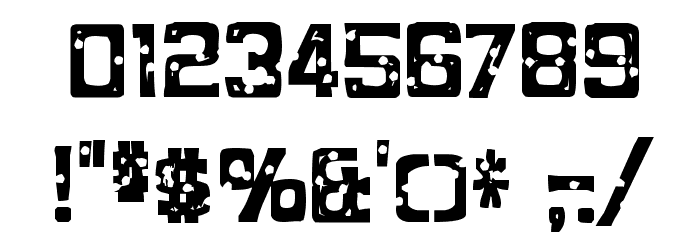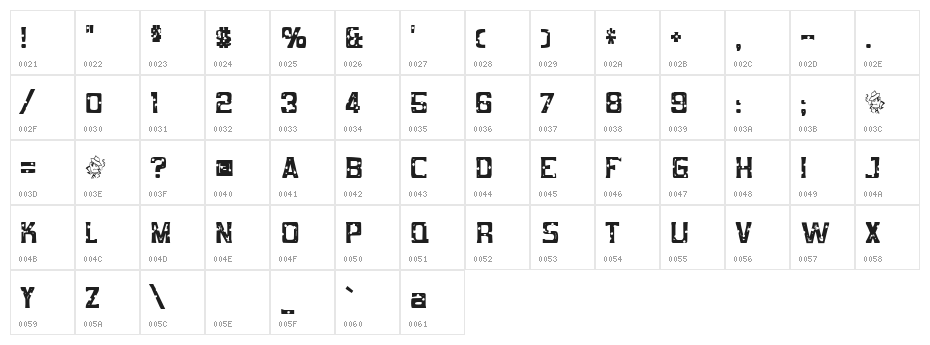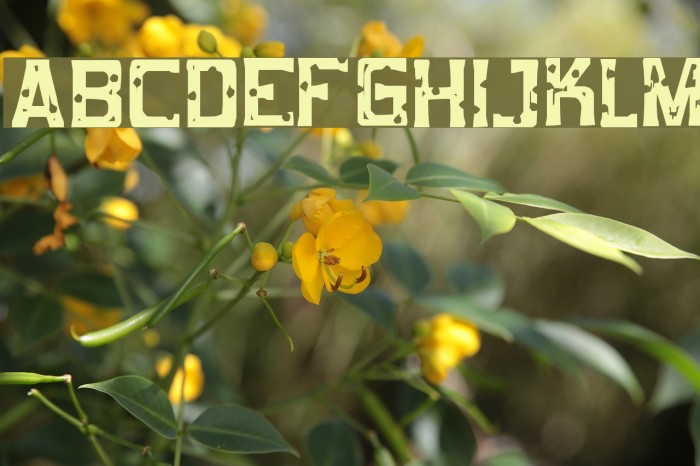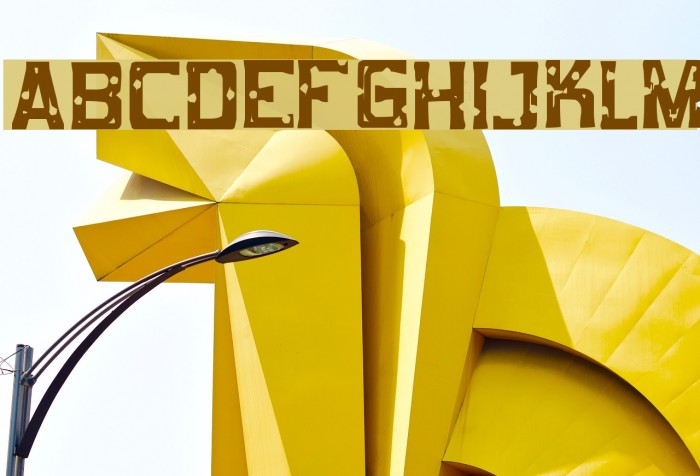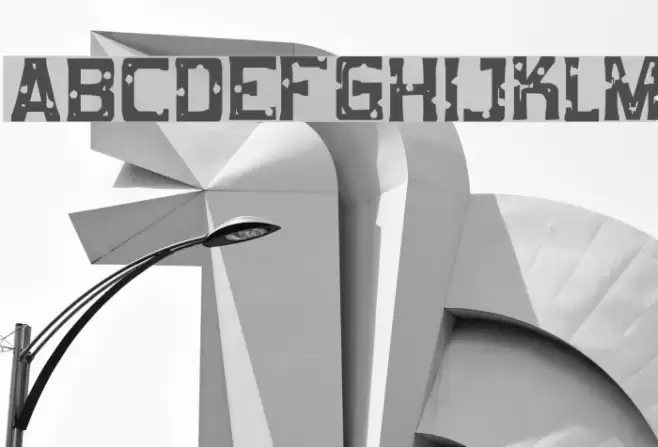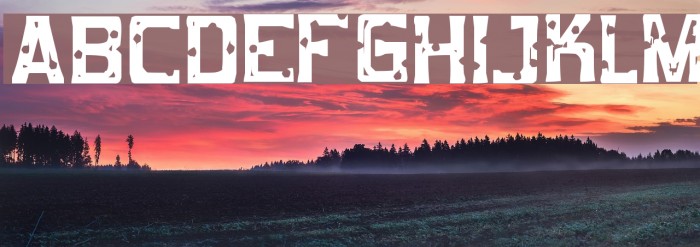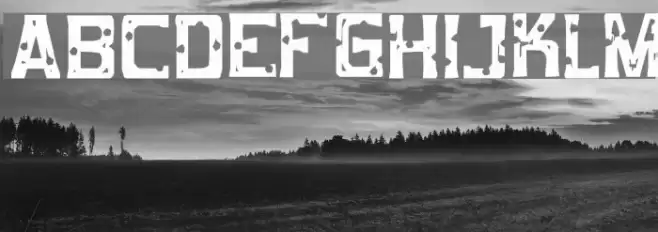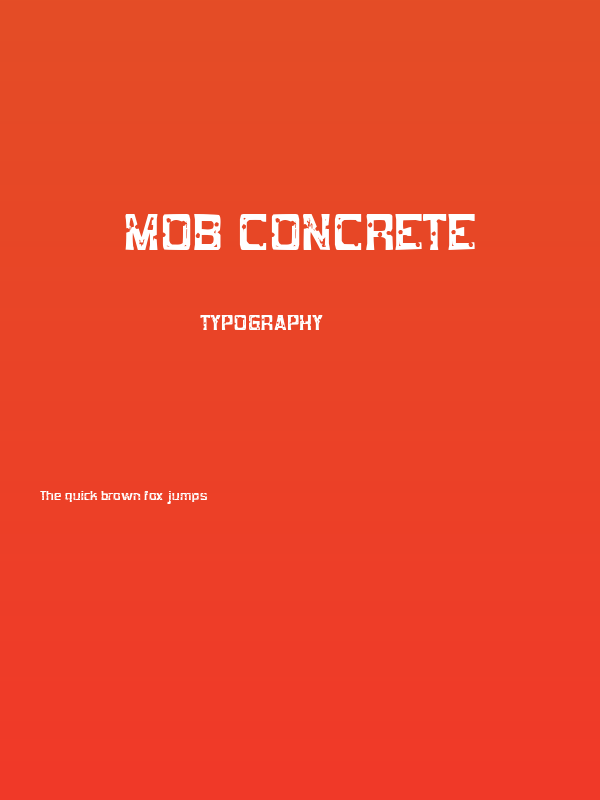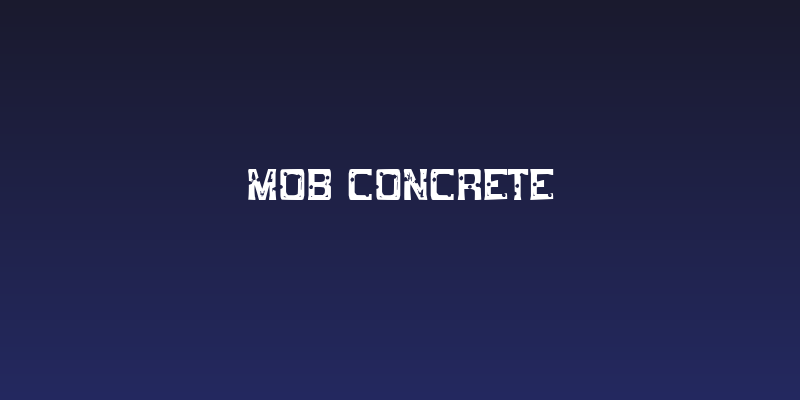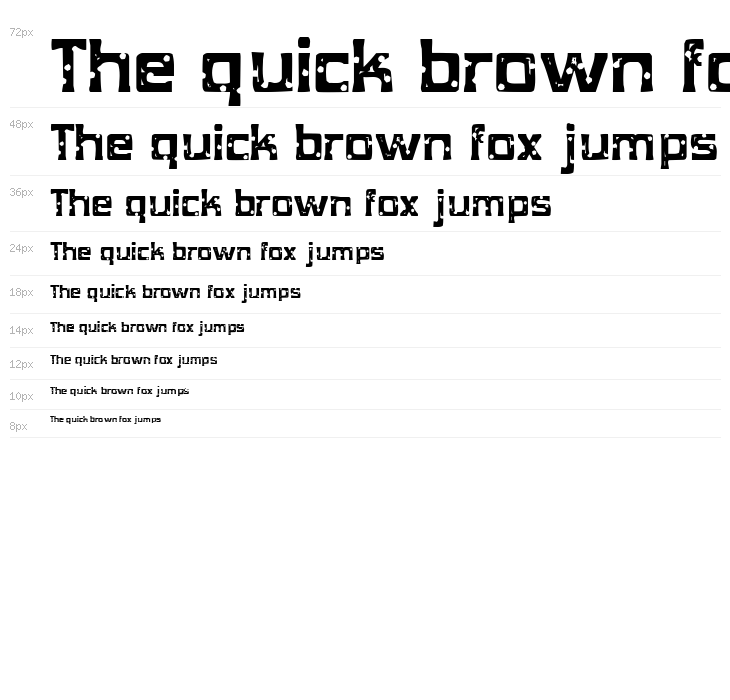
Mob Concrete Font
Mob Concrete Description
This font features a bold, industrial design with a distressed, grunge-like texture. Each character appears as if it has been cut from metal or concrete, with rough edges and irregular holes, giving it a rugged and worn appearance. The uppercase and lowercase letters maintain a consistent style, with strong geometric shapes and a blocky structure. Numbers and special characters follow the same aesthetic, making the font suitable for creating a cohesive visual theme. The overall effect is striking and attention-grabbing, perfect for projects that require a bold statement.
| Overall Style | Industrial, Grunge |
| Proposed Projects | Ideal for urban-themed designs, posters, album covers, and branding that requires a strong, edgy look. |